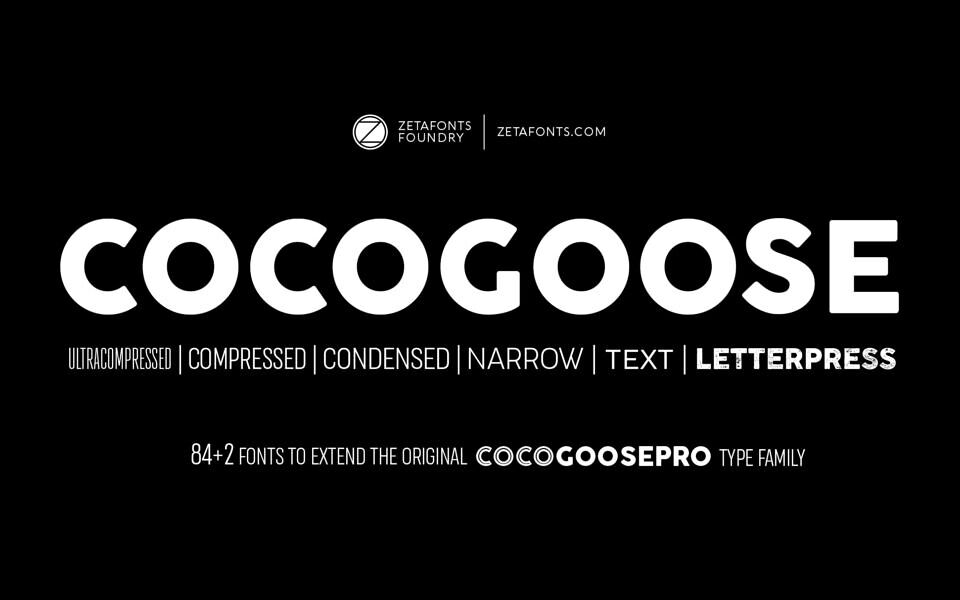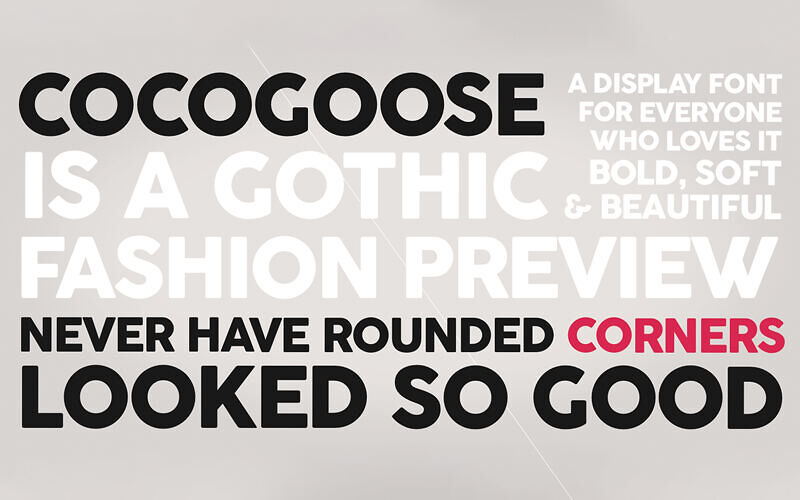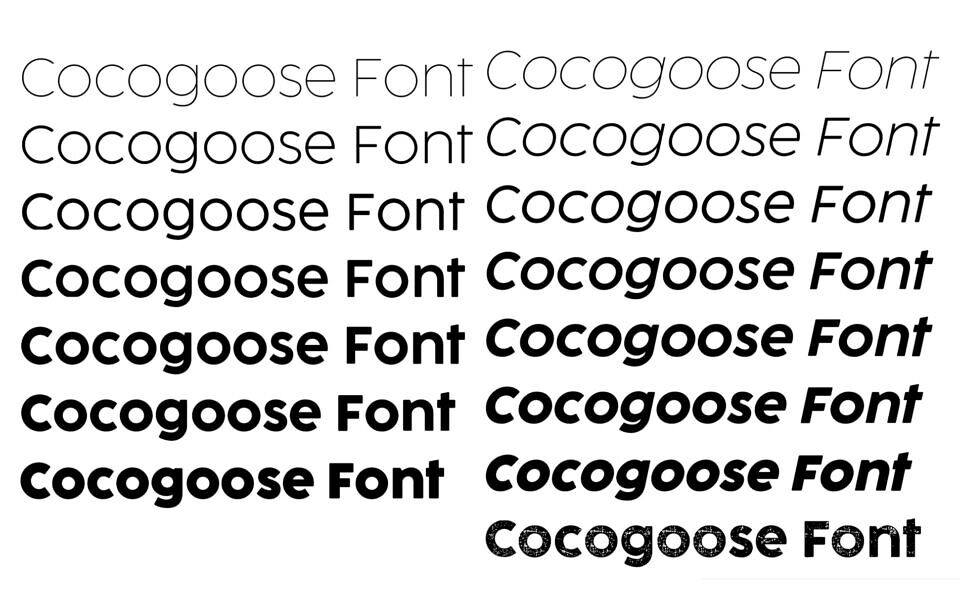
Designed by Cosimo Lorenzo Pancini in 2013, Cocogoose was first expanded in 2015 with the help of Francesco Canovaro who co-designed the decorative display weights and Andrea Tartarelli who developed the condensed widths.
In 2020, Cocogoose Pro was revamped with new features and technologies. It now includes a variable font version for precise text tuning and a dark mode weight range for consistent display. A new text subfamily was also introduced, prioritizing readability on screens and in print while maintaining the original look and feel.